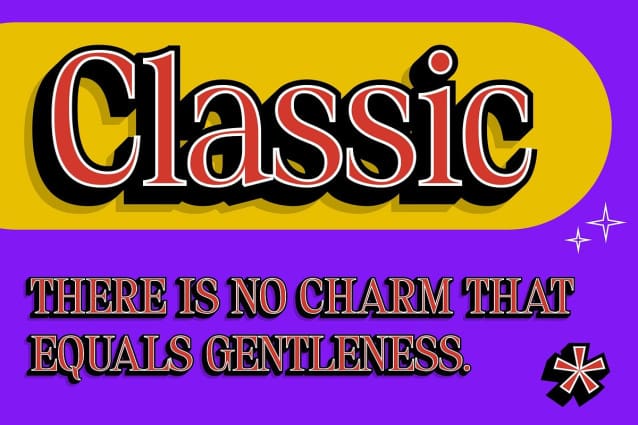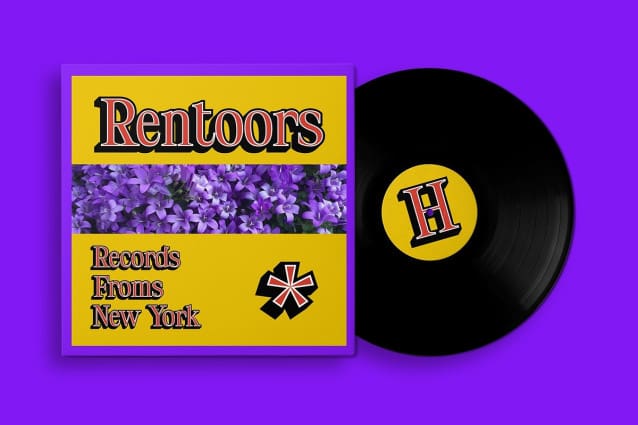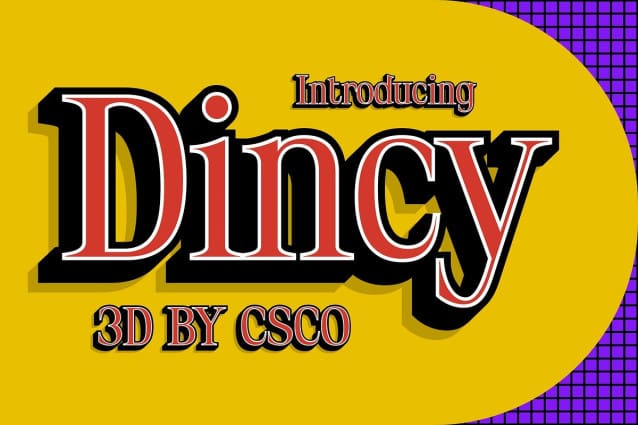
Dincy 3D Font
Dincy 3D Font is a font that combines a modern serif style with 3D shapes. Perfect for eye-catching displays, this font adds depth and sophistication to your designs.
With its sleek lines and three-dimensional elements, Dincy offers a fresh take on traditional serif fonts. The modern design and 3D shapes create a captivating and dynamic look, ideal for posters, digital media, and other projects that need a bold and innovative appeal.
Whether you’re designing a flyer for a contemporary event or creating standout packaging, Dincy is sure to make an impression. Its modern serif style and 3D shapes make it perfect for displays that demand attention and convey a sense of modernity and creativity.
Despite its distinctive appearance, Dincy is versatile and easy to use. The font works well in both large and small sizes, making it suitable for a variety of applications, from headlines and banners to logos and more. With its blend of modern design and three-dimensional elements, Dincy adds a captivating and futuristic touch to any design.